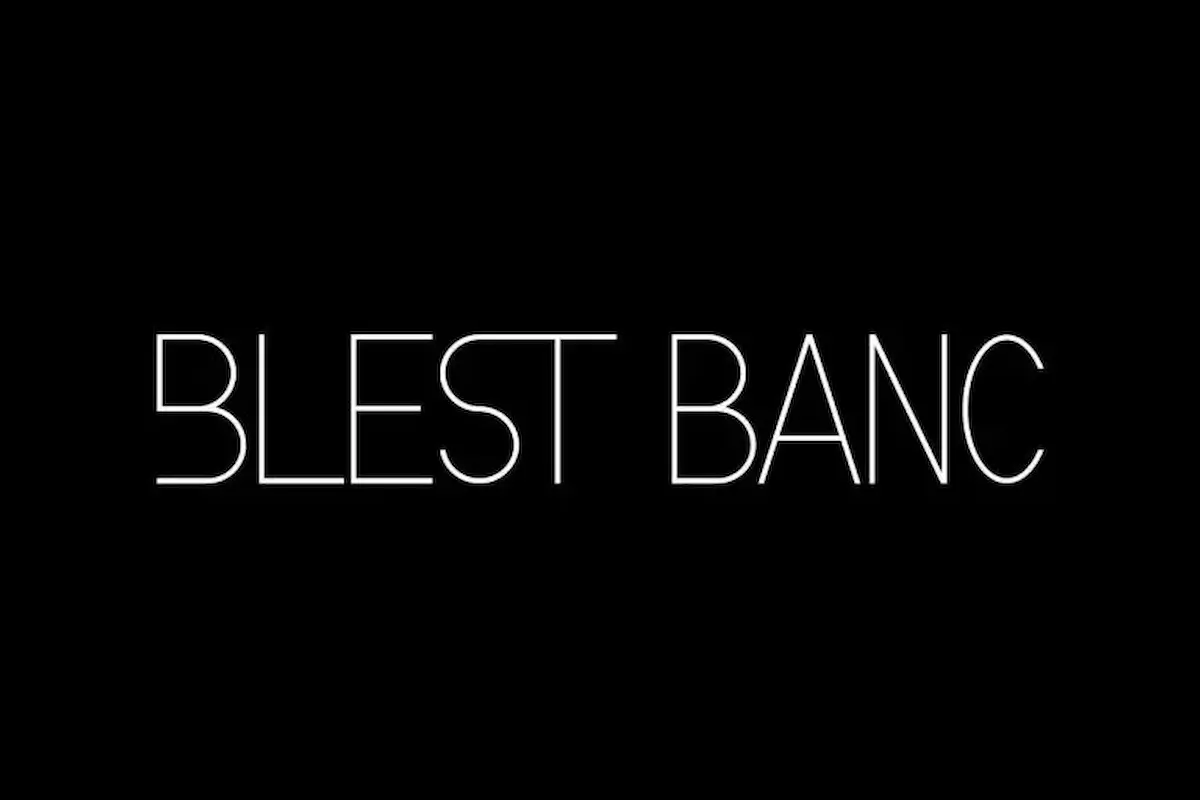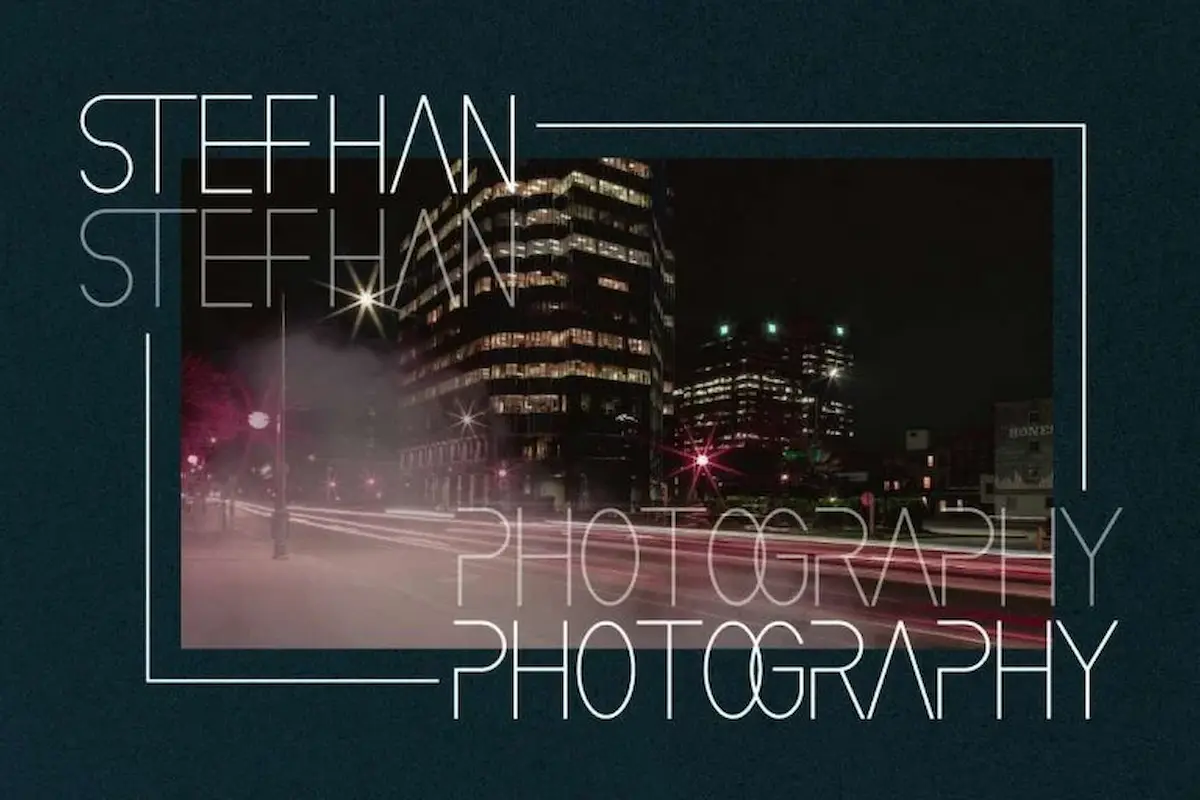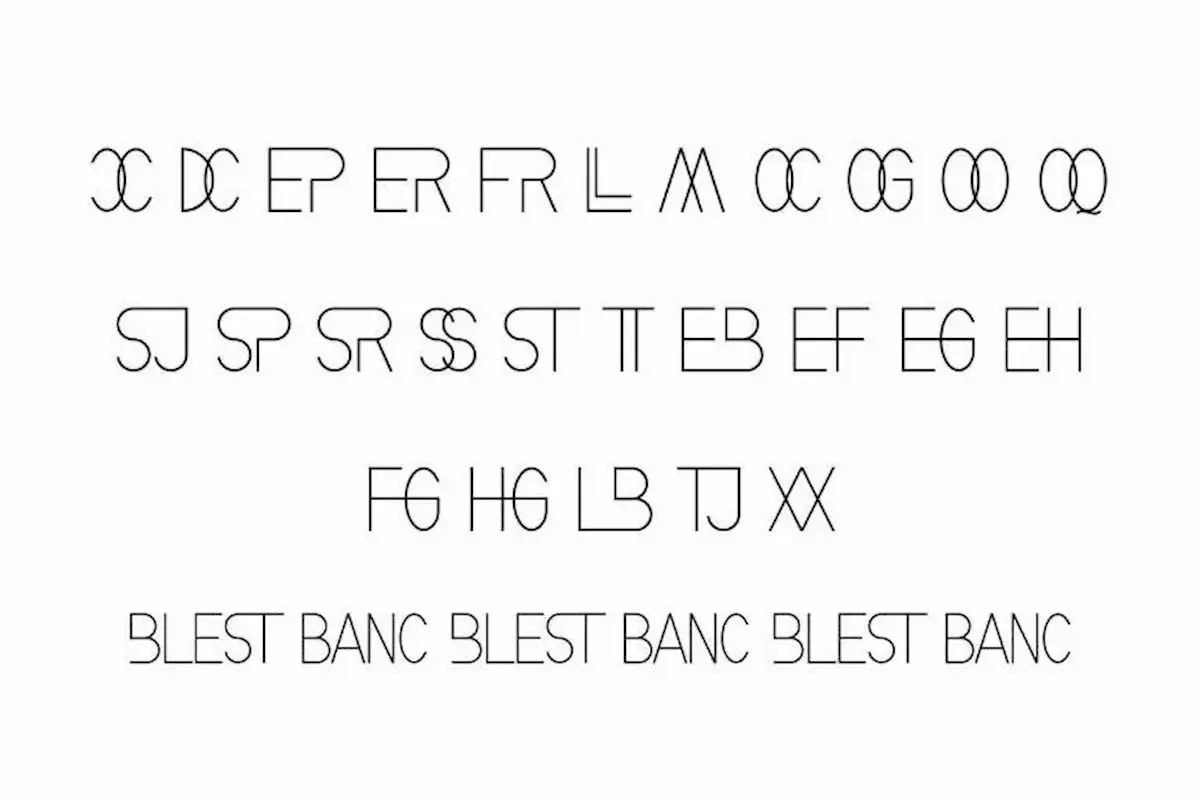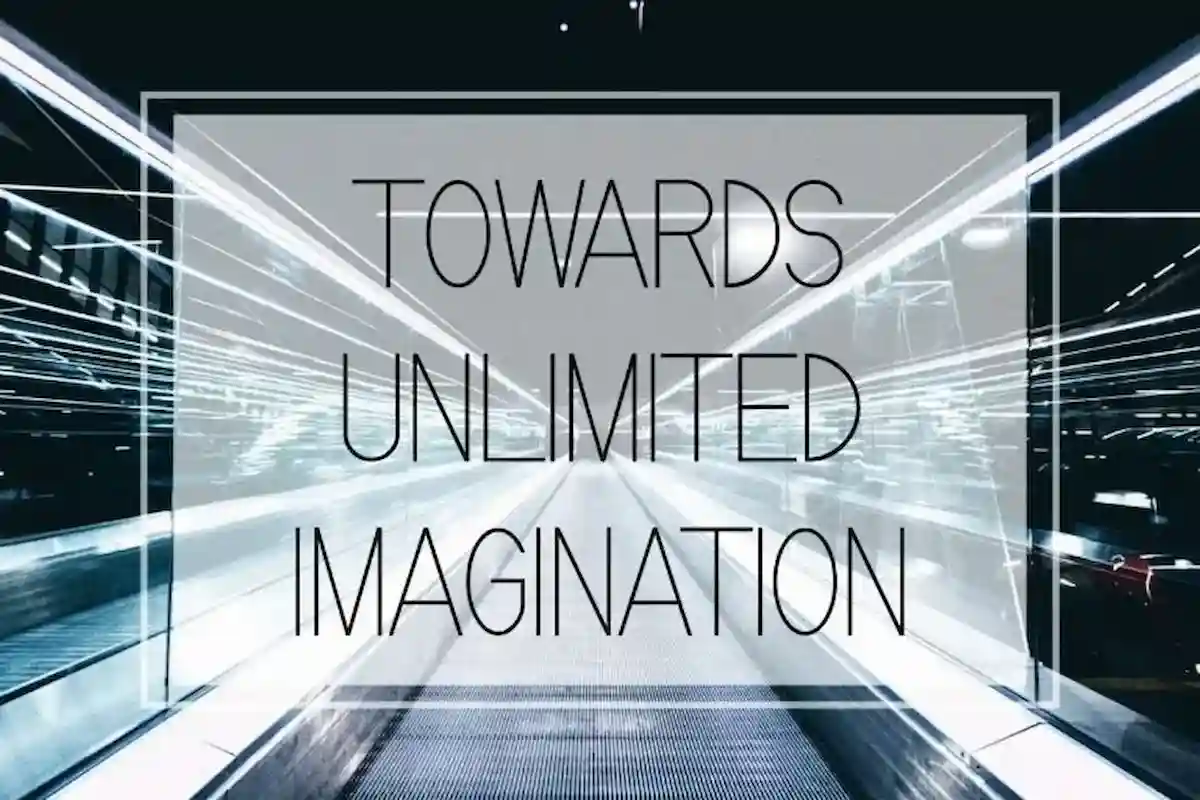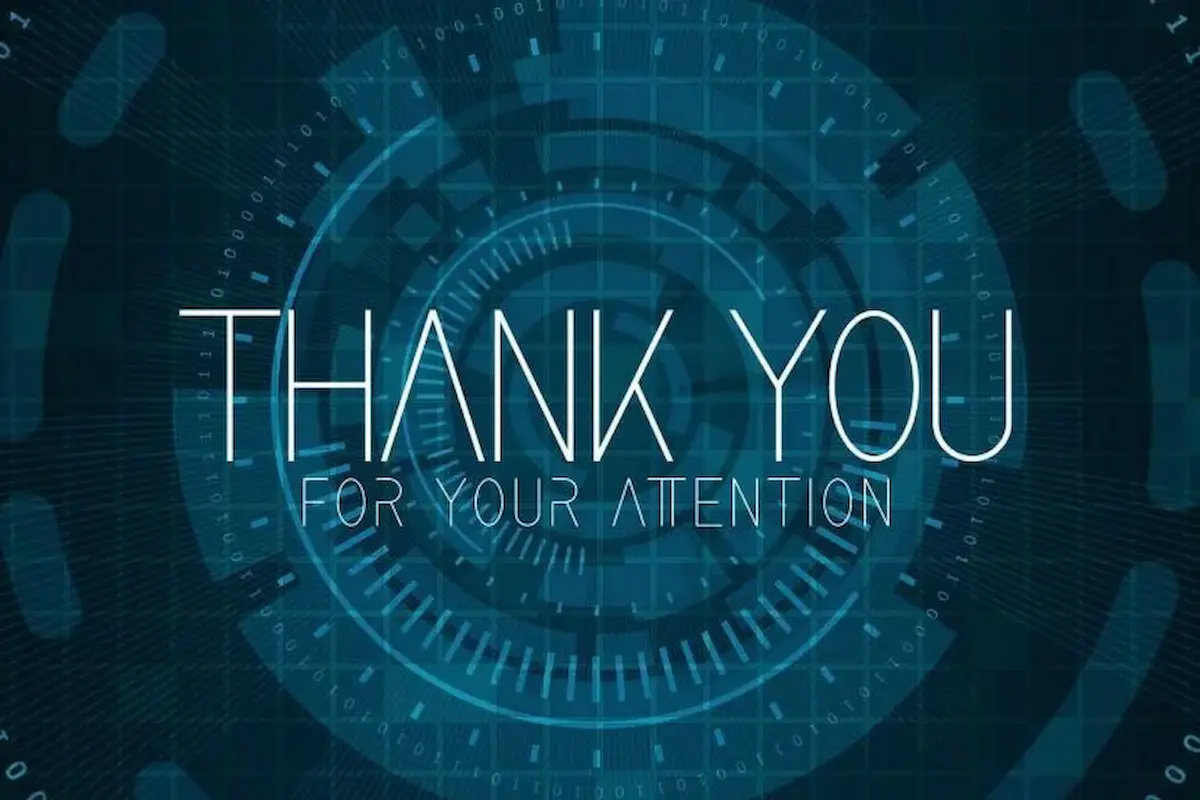
Blest Banc Font
Blest Banc Font is a simple minimal sans serif display font by NihStudio, made in 2021. The Font will great for many industries : brandings, website, movie, signage technology etc
Handcrafted here in our Studio , Indonesia. Blest Banc Minimal Font will be great for any projects (require extended license) including : branding, logo, stationery, business card, signage, flyer, brochure etc. Blest Banc Font comes with ligatures to make it flowless and Special. Blest Banc will be great for many business and industries including cosmetic, beauty, education, wedding, finance, fashion, houseware etc